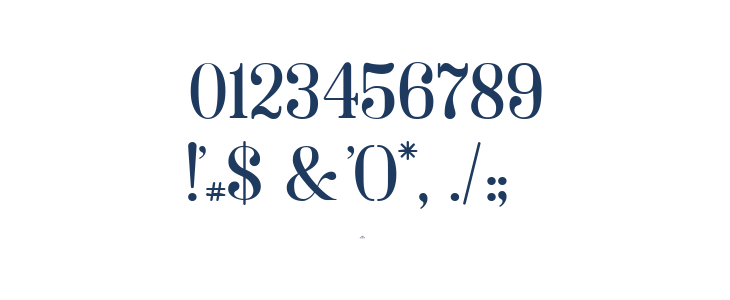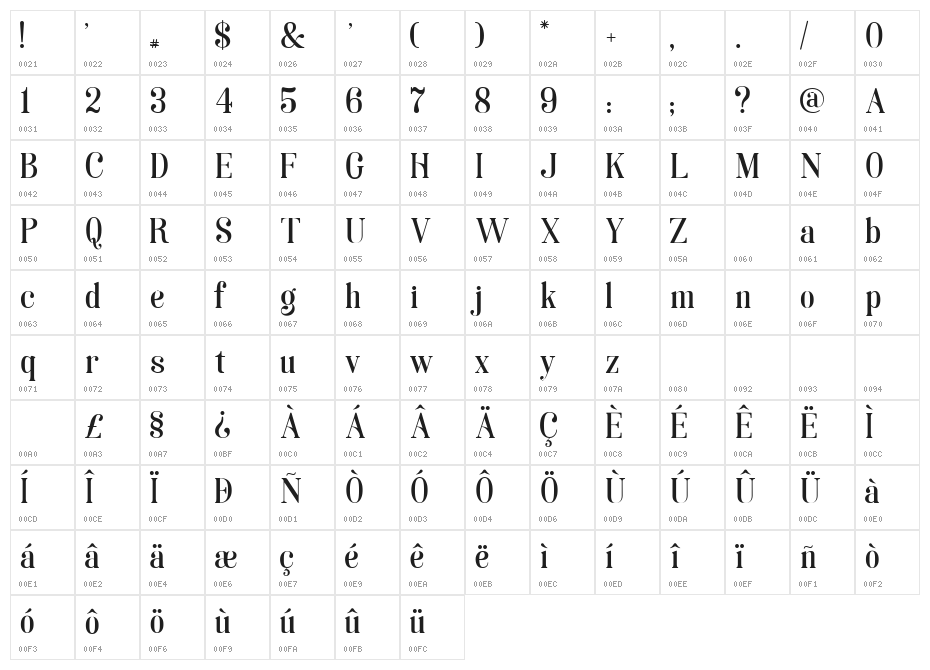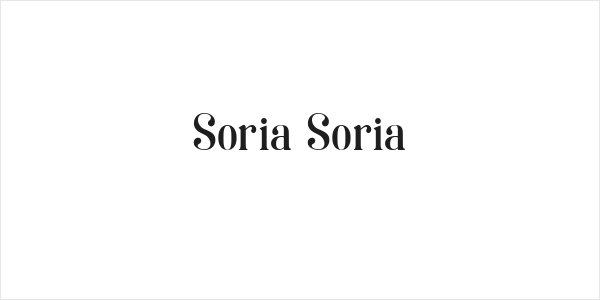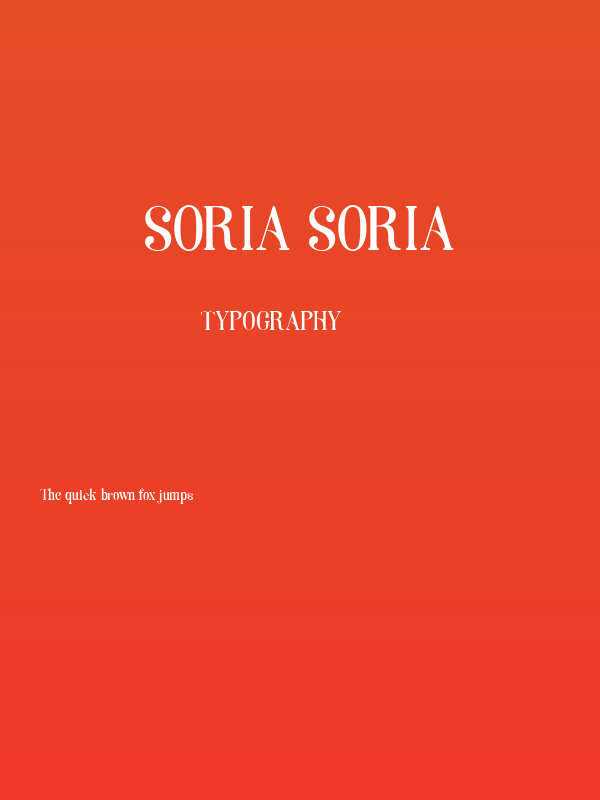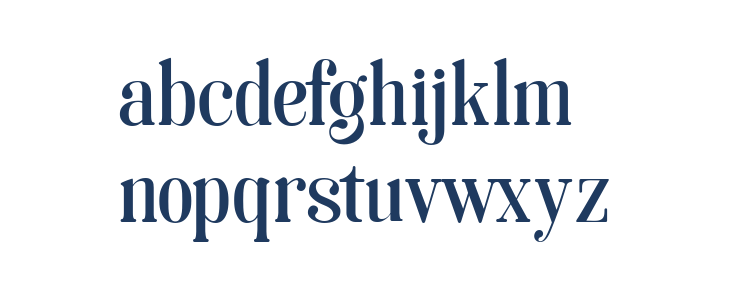
Soria Soria Font
Soria Soria Description
This font features a classic serif style with elegant, flowing curves and a sophisticated appearance. The uppercase letters are tall and stately, with pronounced serifs that add a touch of formality. The lowercase letters maintain a consistent style, with smooth transitions and a slightly condensed form. The numerals are bold and clear, ensuring readability. Special characters are designed with the same attention to detail, making them fit seamlessly with the rest of the typeface. The overall design is both timeless and versatile, suitable for a variety of applications.